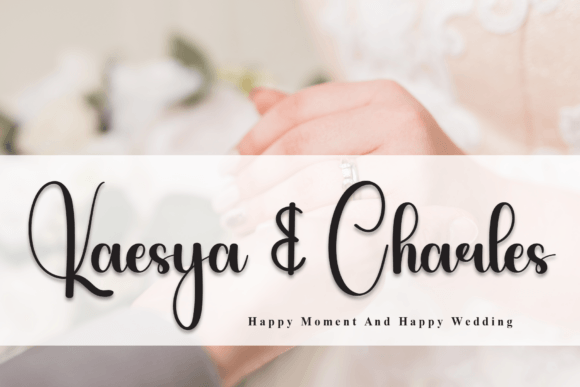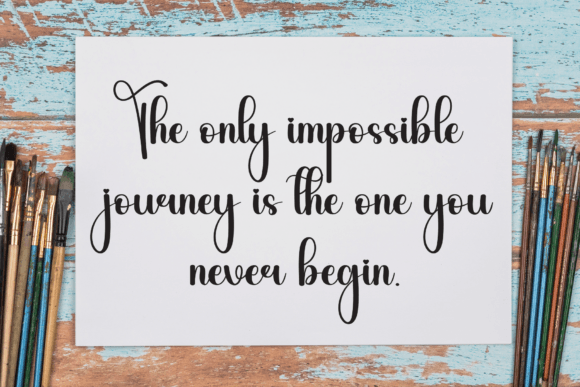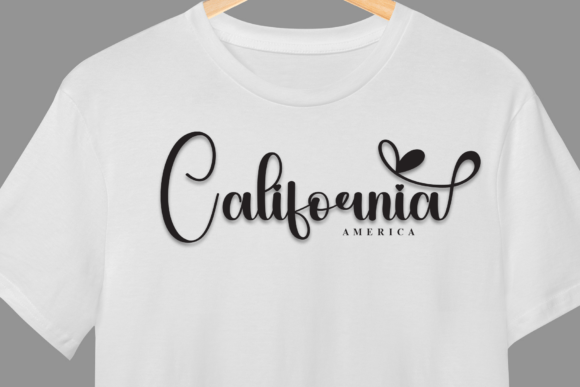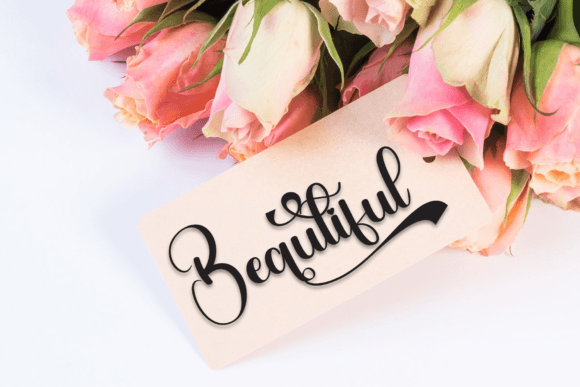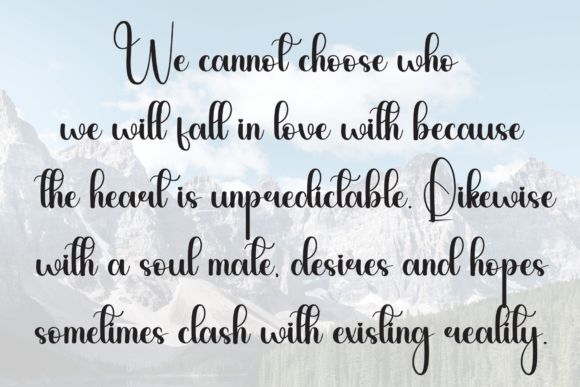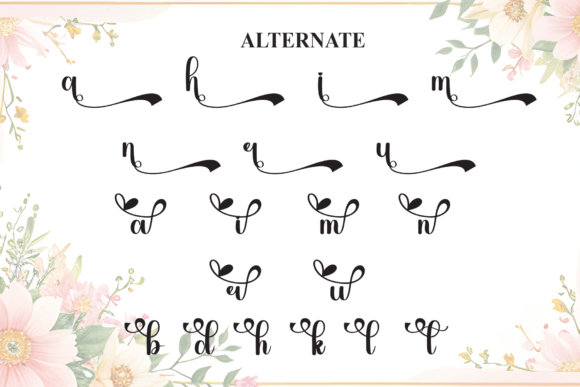
Discovering the Perfect Script: Unveiling Andelucia Font
There’s something magical about stumbling upon a font that perfectly captures the essence of a design concept. For designers, this moment is like finding a needle in a haystack – it’s a eureka moment that can make all the difference in creating something truly special. And for many, this moment came when they discovered the Andelucia Font.
This stylish and elegant script font is more than just a pretty face – it’s a versatile tool that can elevate any design from wedding invitations to logos, and everything in between. Whether you’re a seasoned pro or a budding designer, Andelucia Font is a valuable addition to your toolkit, offering a unique and sophisticated touch that’s sure to impress.
With its beautiful, handwritten feel, Andelucia Font is the perfect choice for designers looking to add a personal touch to their projects. Whether you’re working on a high-end brand or a heartfelt greeting card, this font is sure to bring a touch of elegance and sophistication to your design.
Andelucia Font Key Features
- Font Family: Andelucia Font has a unique and elegant script font family, perfect for creative and artistic designs.
- Unique Characteristics: Andelucia Font features a mix of handwritten and elegant script styles, making it ideal for wedding invitations, calligraphy, and artistic typography.
Andelucia Font Review
Initially, I was drawn to Andelucia’s unique blend of elegance and playfulness, which makes it a great choice for projects requiring a touch of sophistication.
- ✨ Andelucia’s high x-height makes it an excellent choice for body text, providing excellent readability.
- ✨ The font’s elegant feel is perfect for luxury brands, creating a sense of refinement and high-end quality.
- ✨ Andelucia’s versatility allows it to work well in both digital and print applications.
- ⚠️ In smaller sizes, the font’s strokes can appear slightly uneven, which may detract from overall quality.
- ⚠️ Andelucia may not be the best choice for projects requiring extreme legibility, as its more ornate feel can make it harder to read at very small sizes.
Overall, I think Andelucia is a great addition to any designer’s toolkit. While it may have some limitations, its unique charm and elegant feel make it a compelling choice for the right project. With some careful consideration of its strengths and weaknesses, Andelucia can help designers create truly exceptional work.
Getting the Most Out of Andalucia Font
To get the most out of the Andalucia font, use it in combination with bold or italic text to create visual interest. You can also use it to create a vintage or distressed look by applying texture or gradient effects.
The Andalucia font is ideal for creating a vintage or rustic look in designs such as:
- Wedding invitations
- Food and drink labels
- Travel brochures
- Photography and art prints